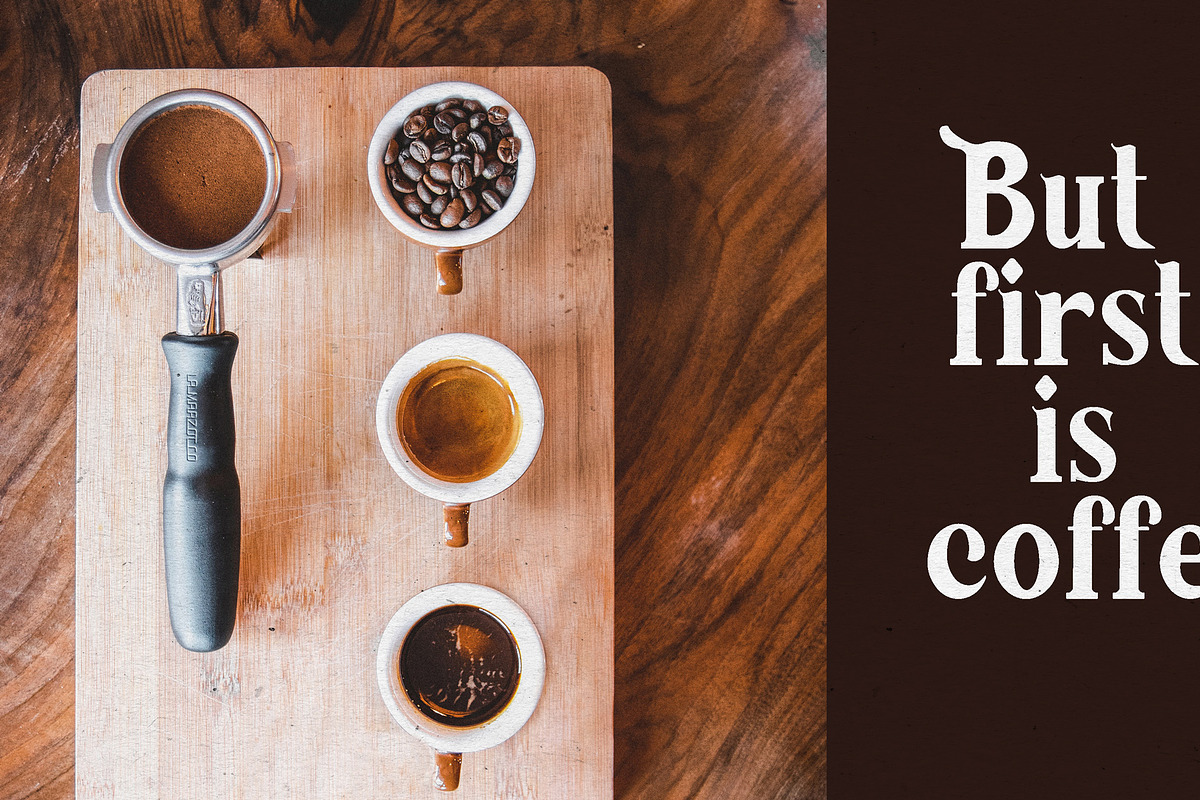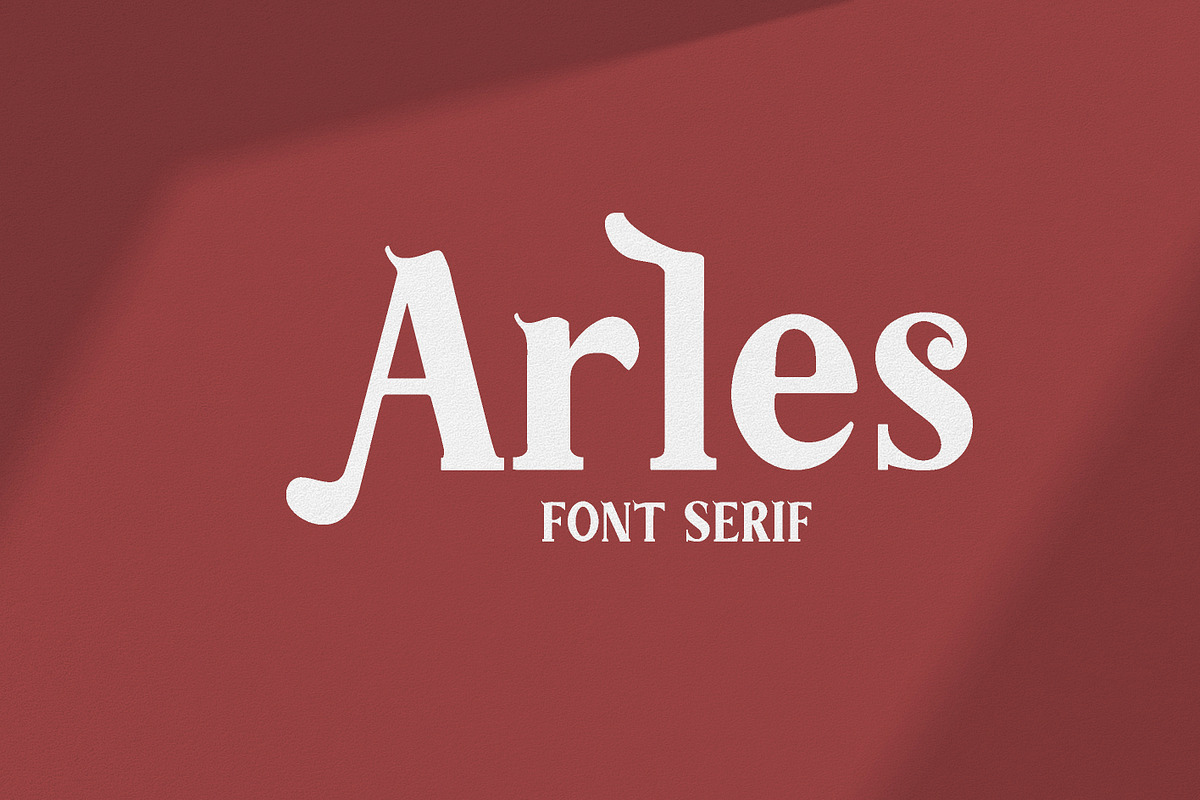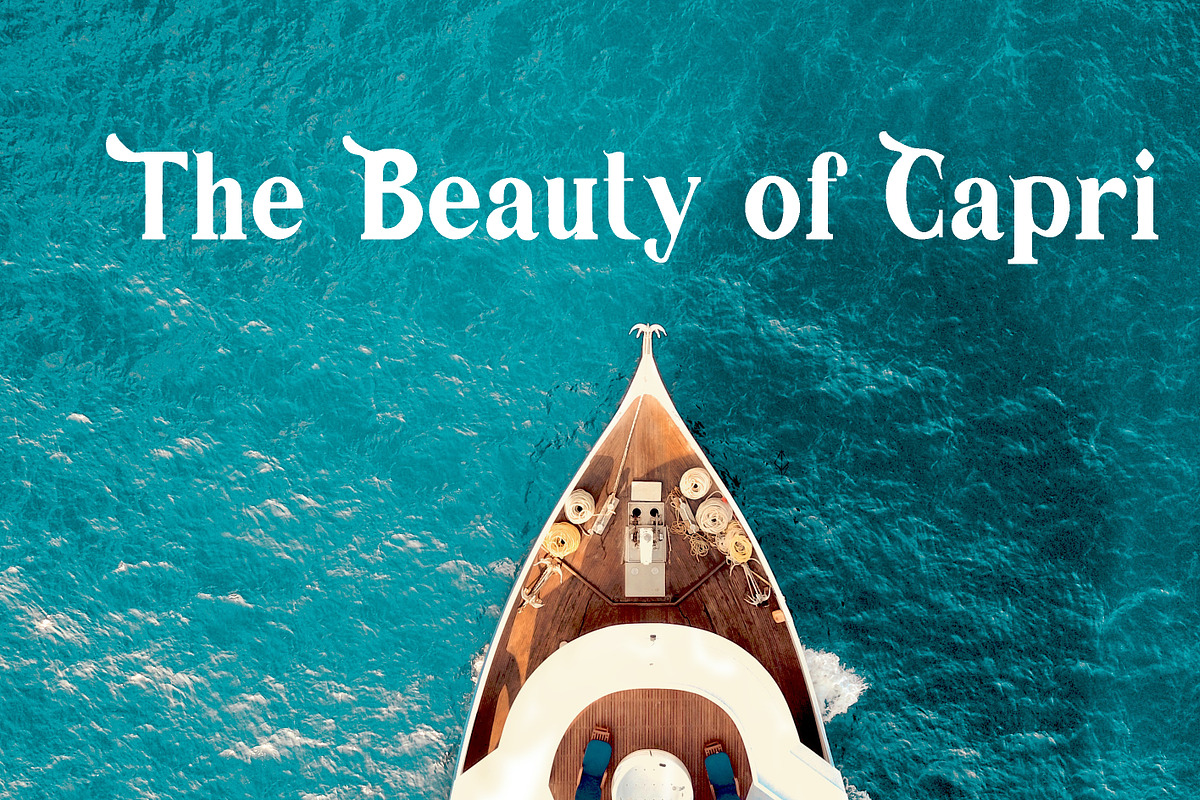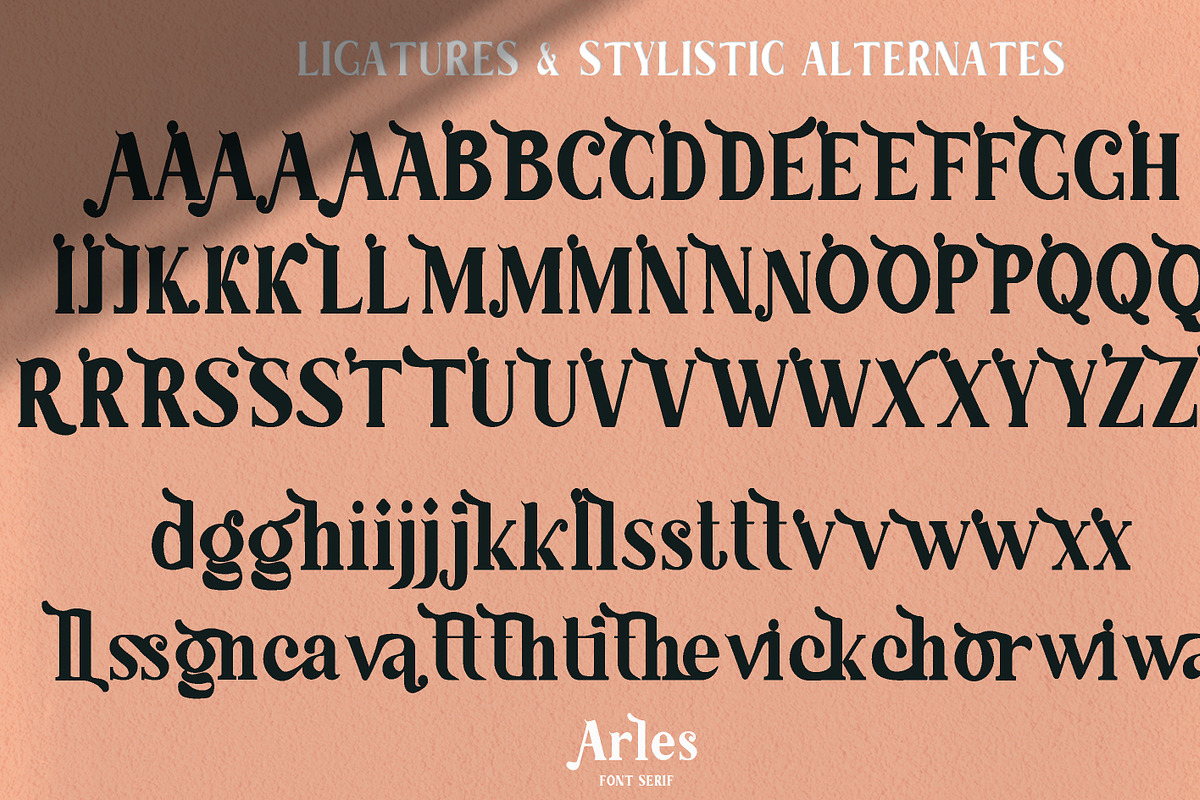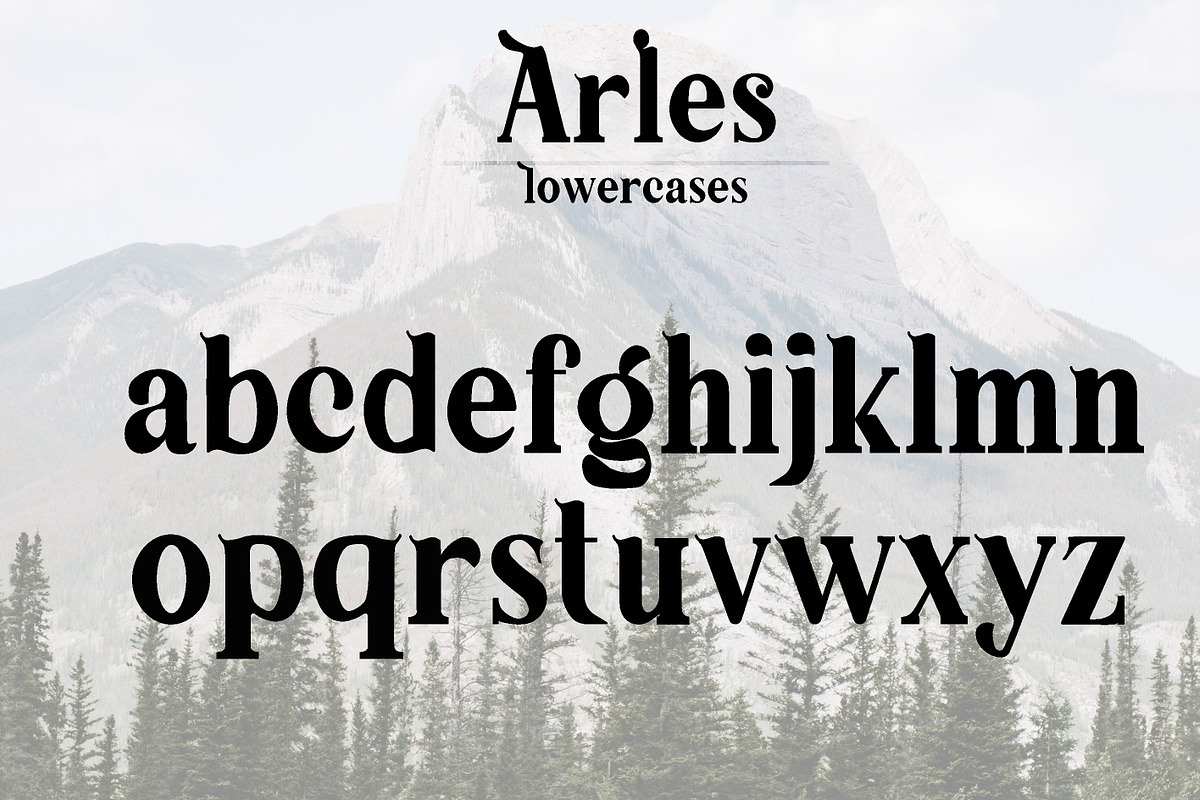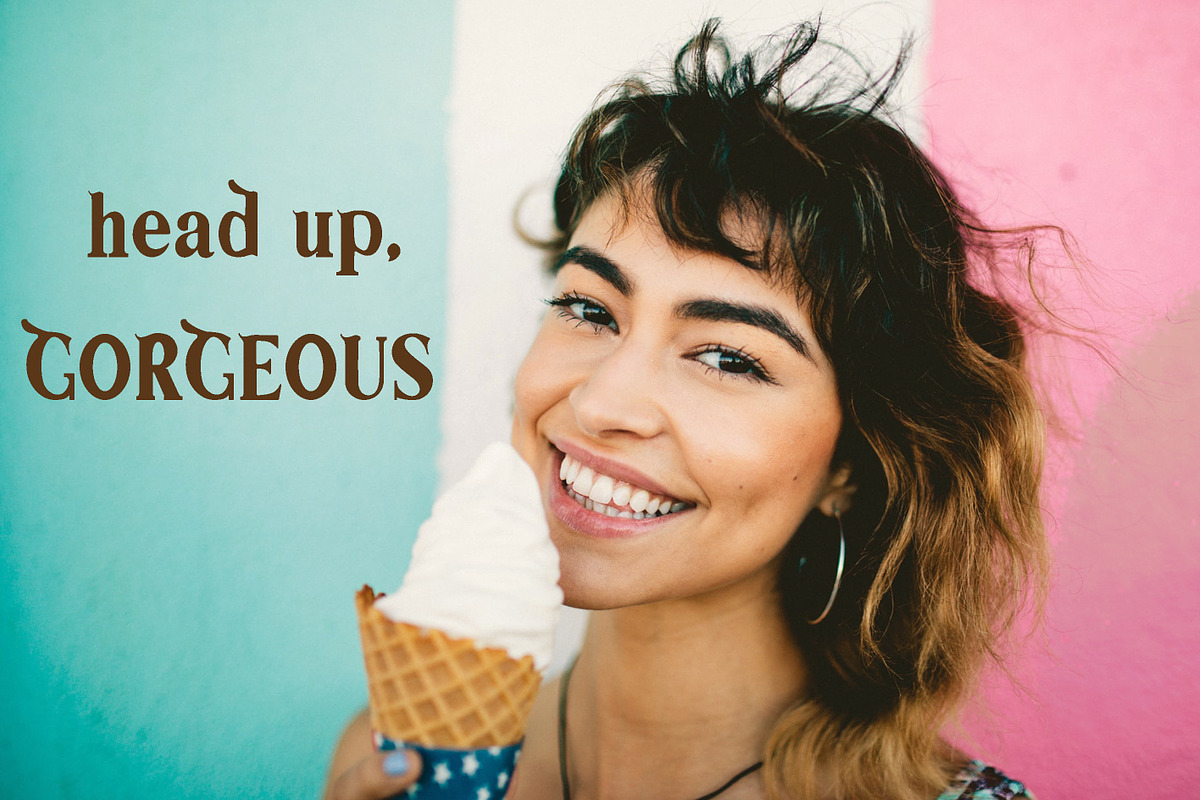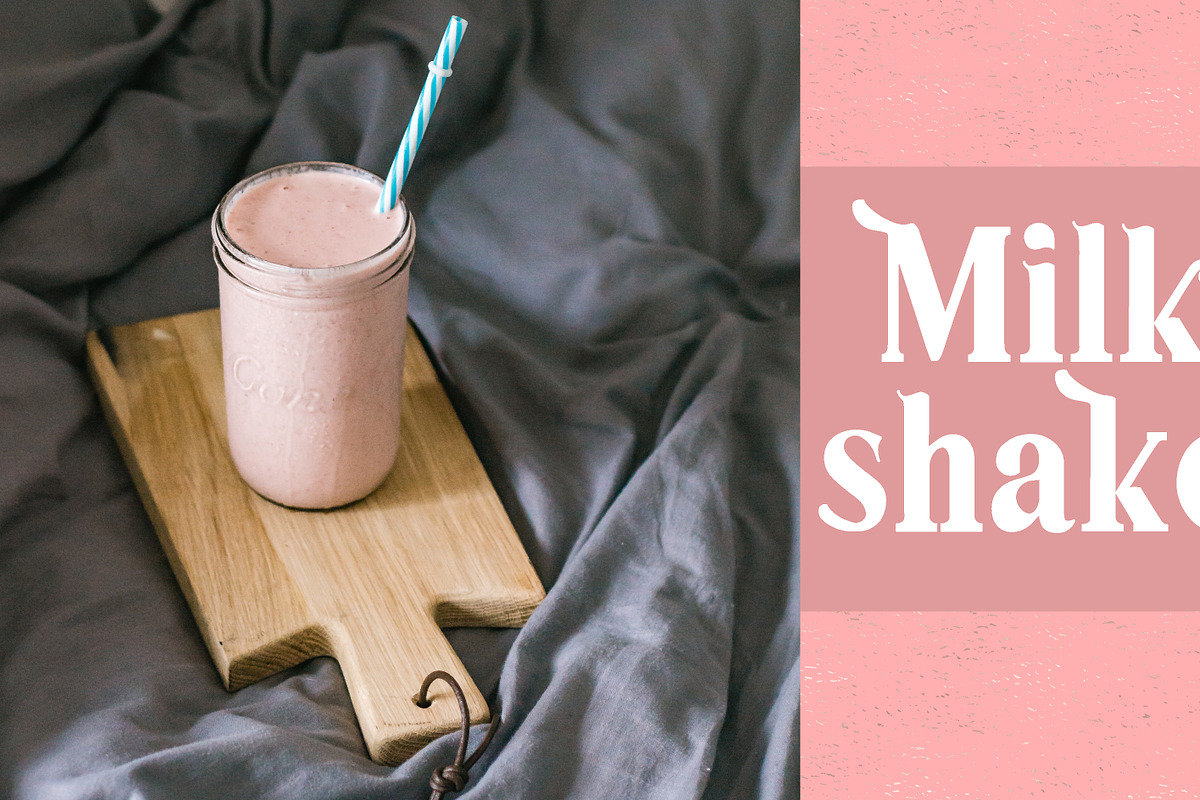
Arles | Serif Font
Arles. Serif Font with a lot of alternative characters, multilingual support and nice ligatures.
Arles | Serif Font by LABFcreations fits naturally into Branding, posters, packaging, typography.